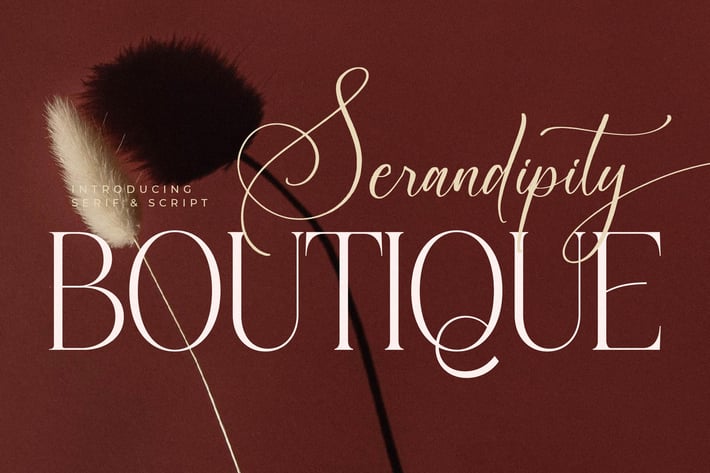
Serandipity Boutique Font Duo
Serandipity Boutique is an elegant font duo featuring a refined serif and a flowing script. The combination creates a perfect harmony between sophistication and charm, making it an excellent choice for luxury, fashion, and creative projects.
+ Font duo: Serif & Script styles
+ Elegant and stylish design
+ Perfect balance of modern and classic elements
+ Multilingual support
+ Smooth readability across digital and print media
+ Fashion & boutique branding
+ Luxury product packaging
+ Beauty and lifestyle projects
+ Wedding invitations & stationery
+ Editorial & magazine layouts
+ Social media graphics
Add timeless elegance to your designs with Serandipity Boutique — a perfect blend of serif sophistication and script charm.